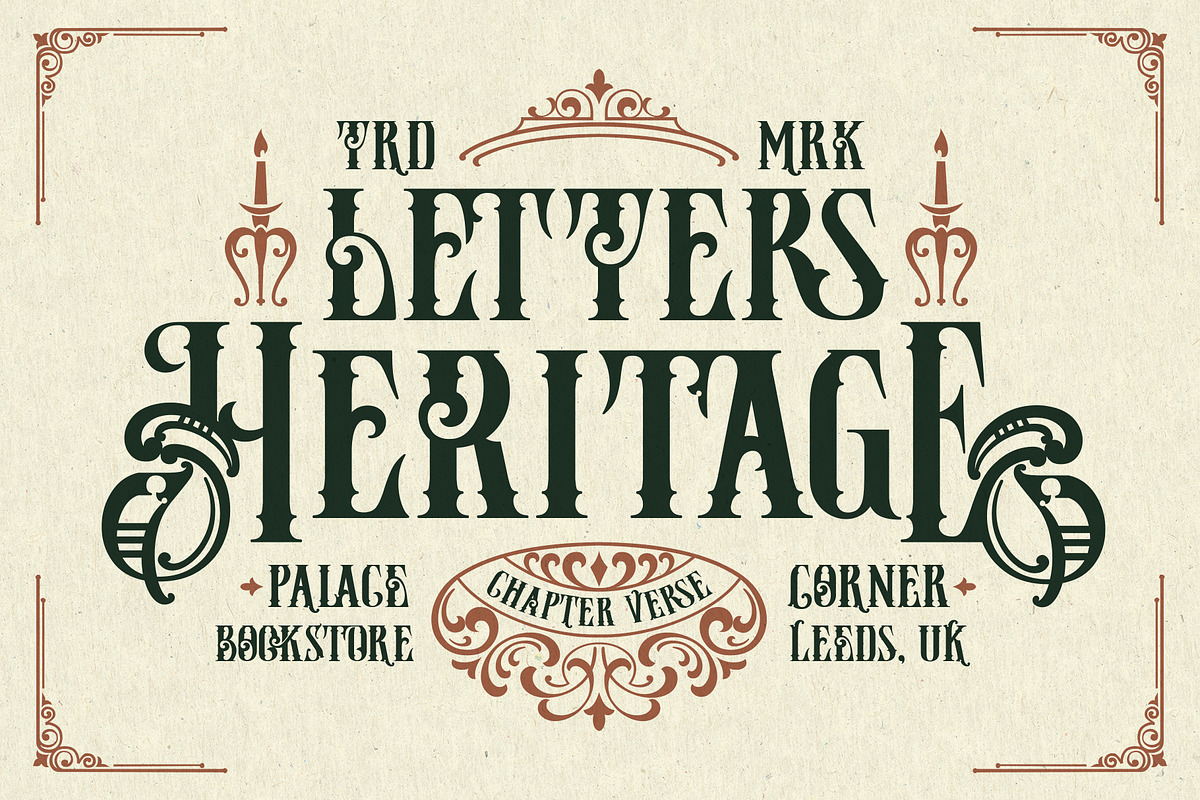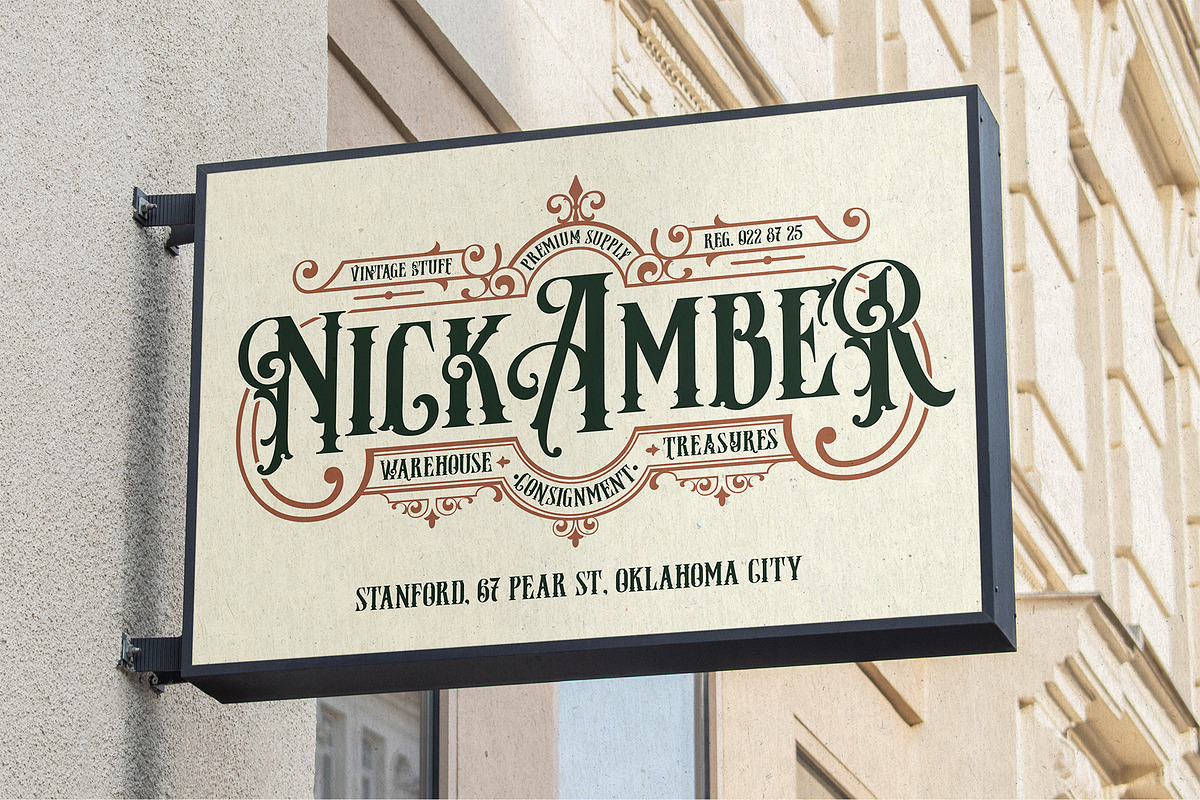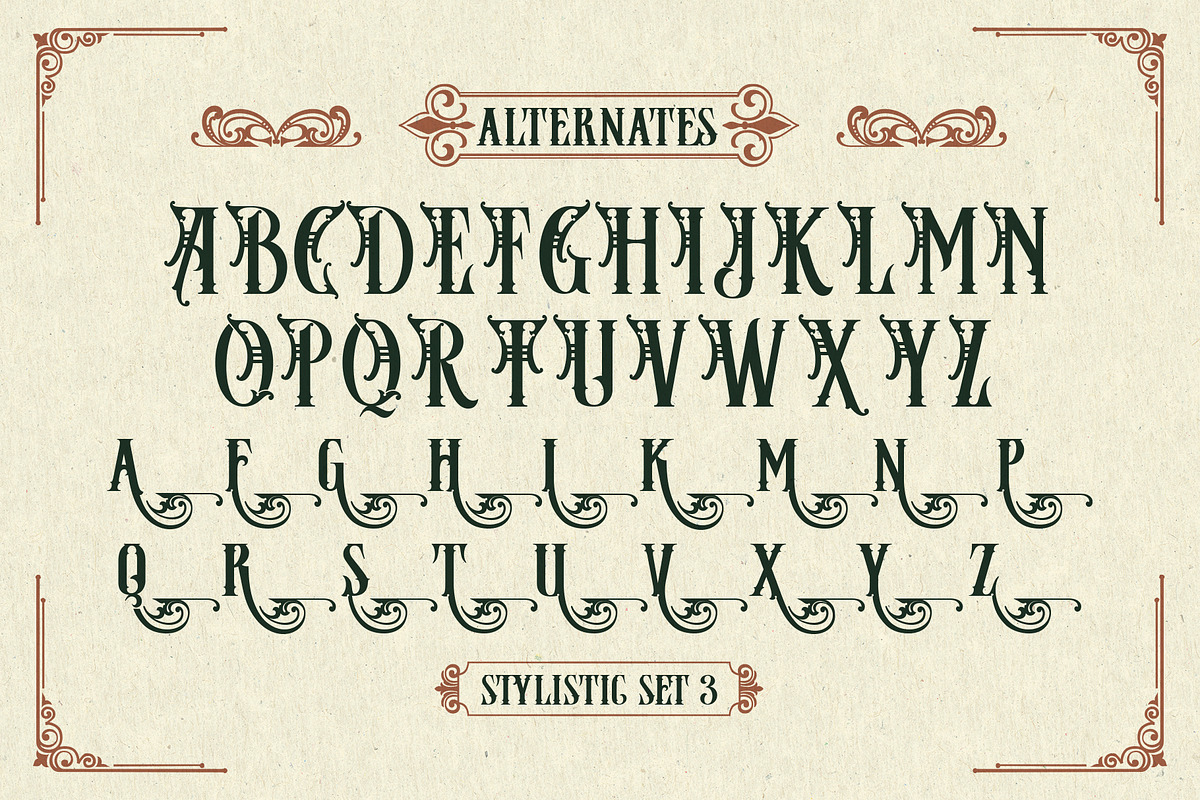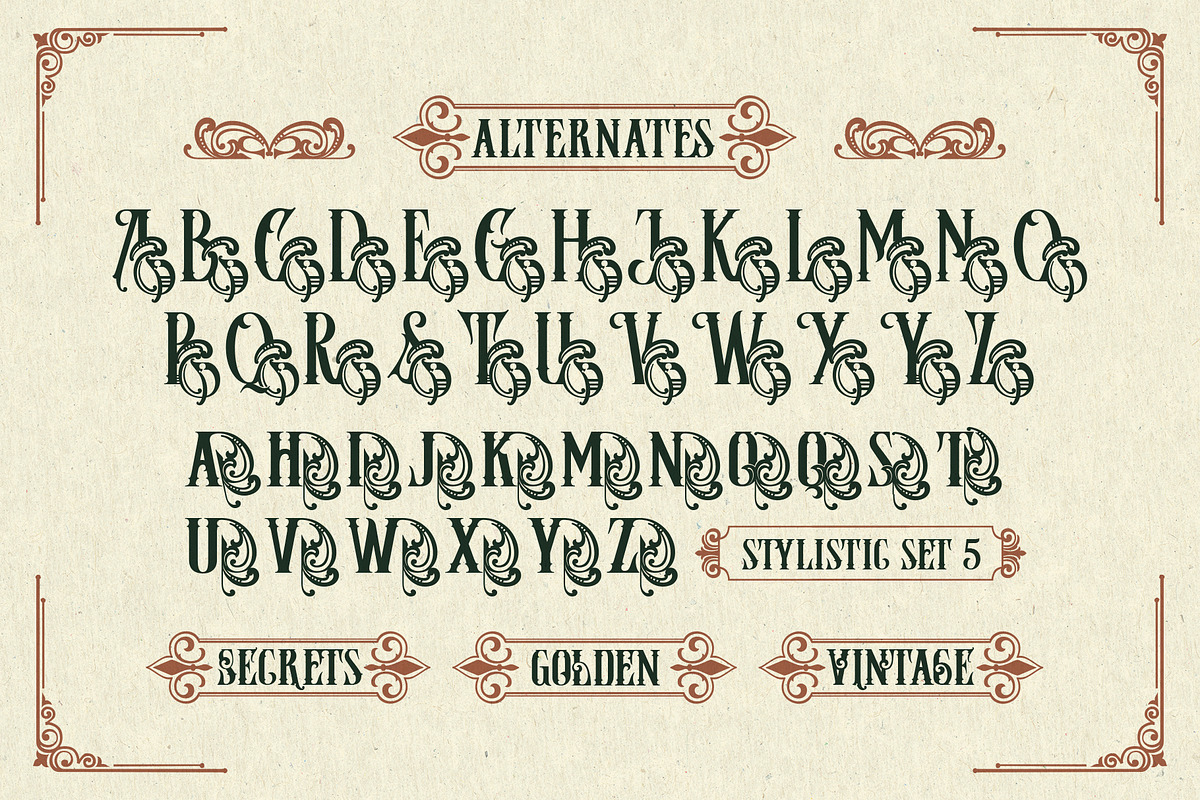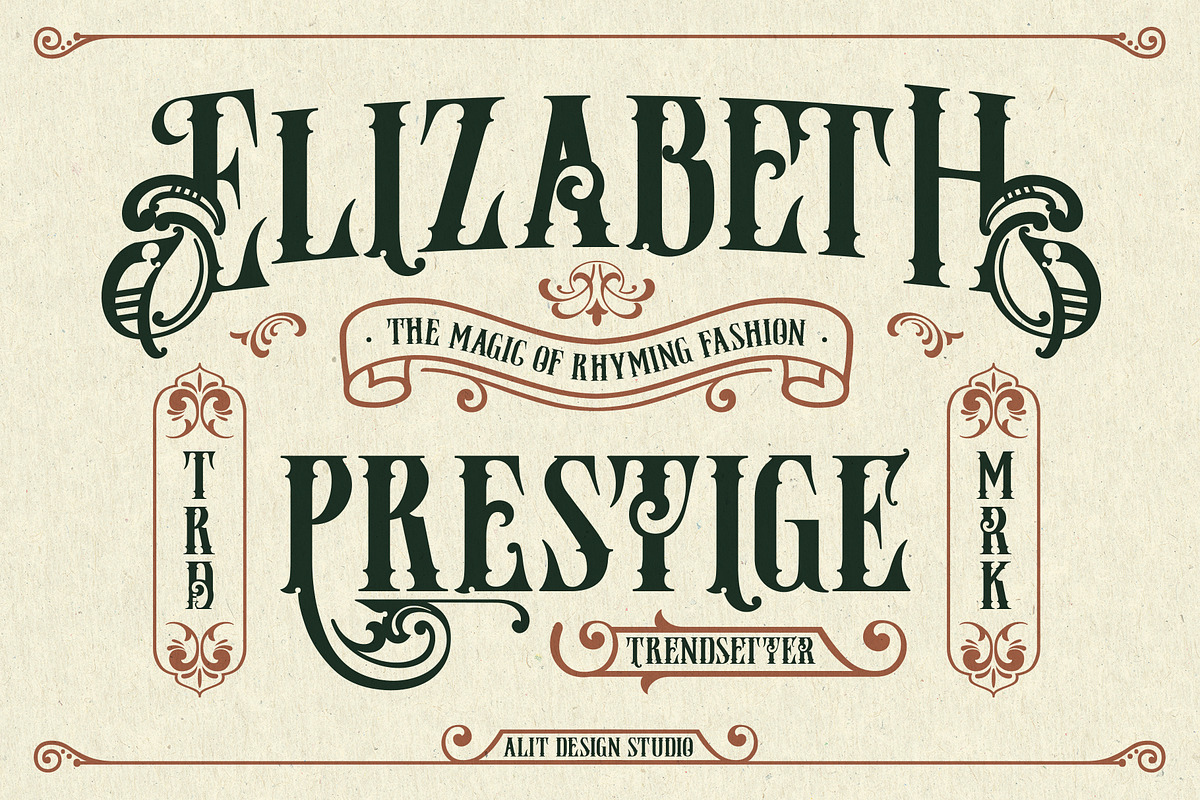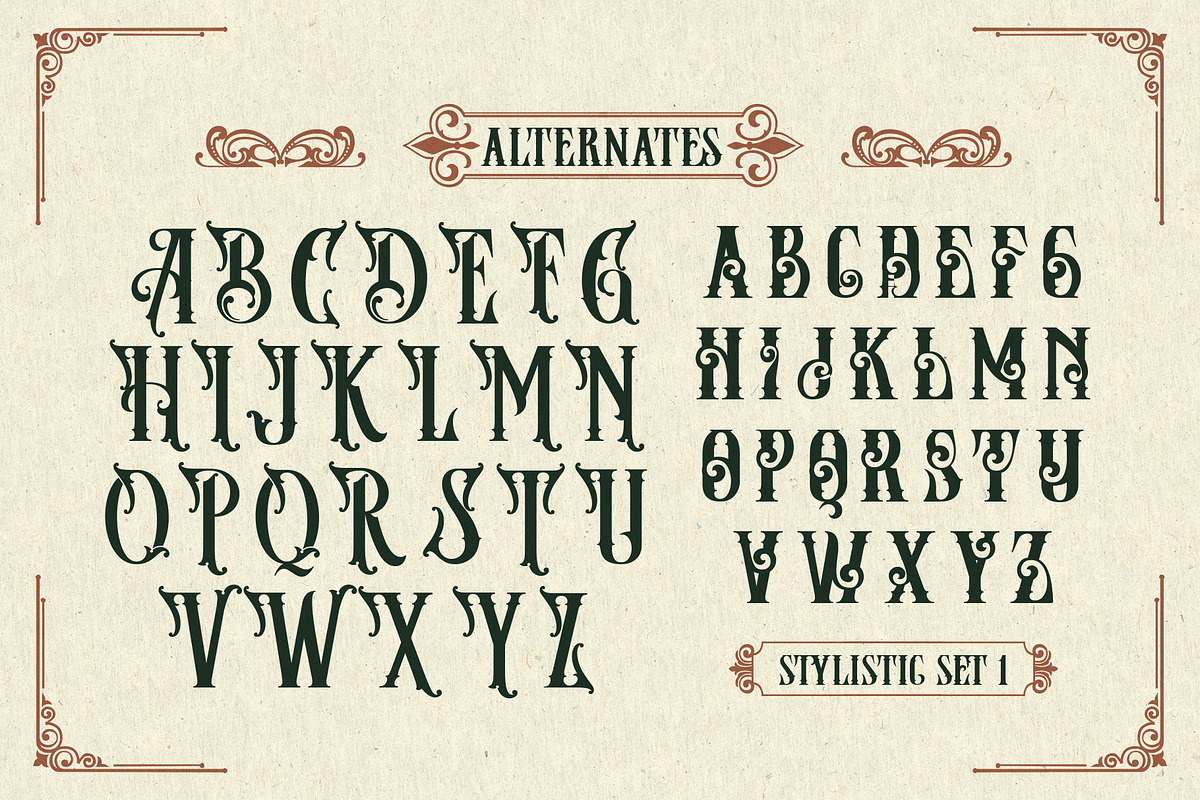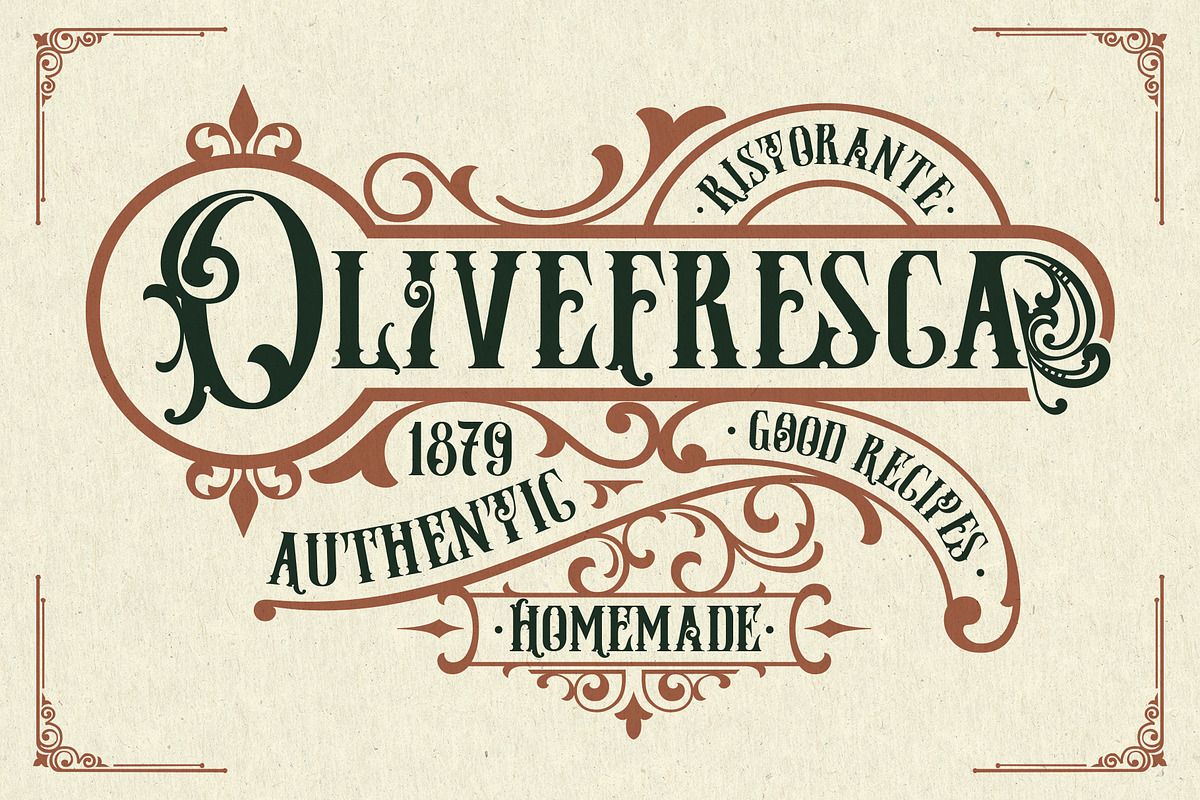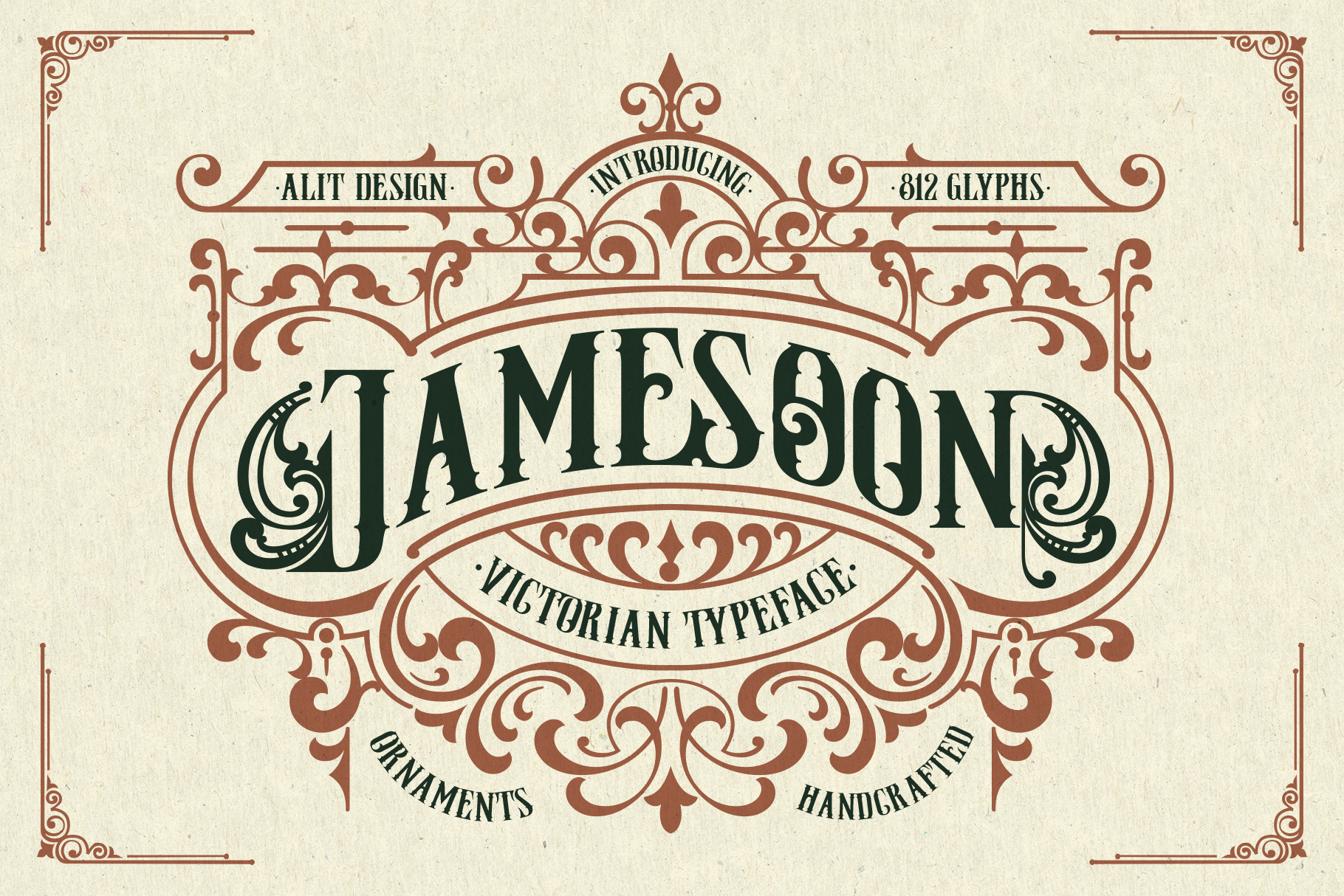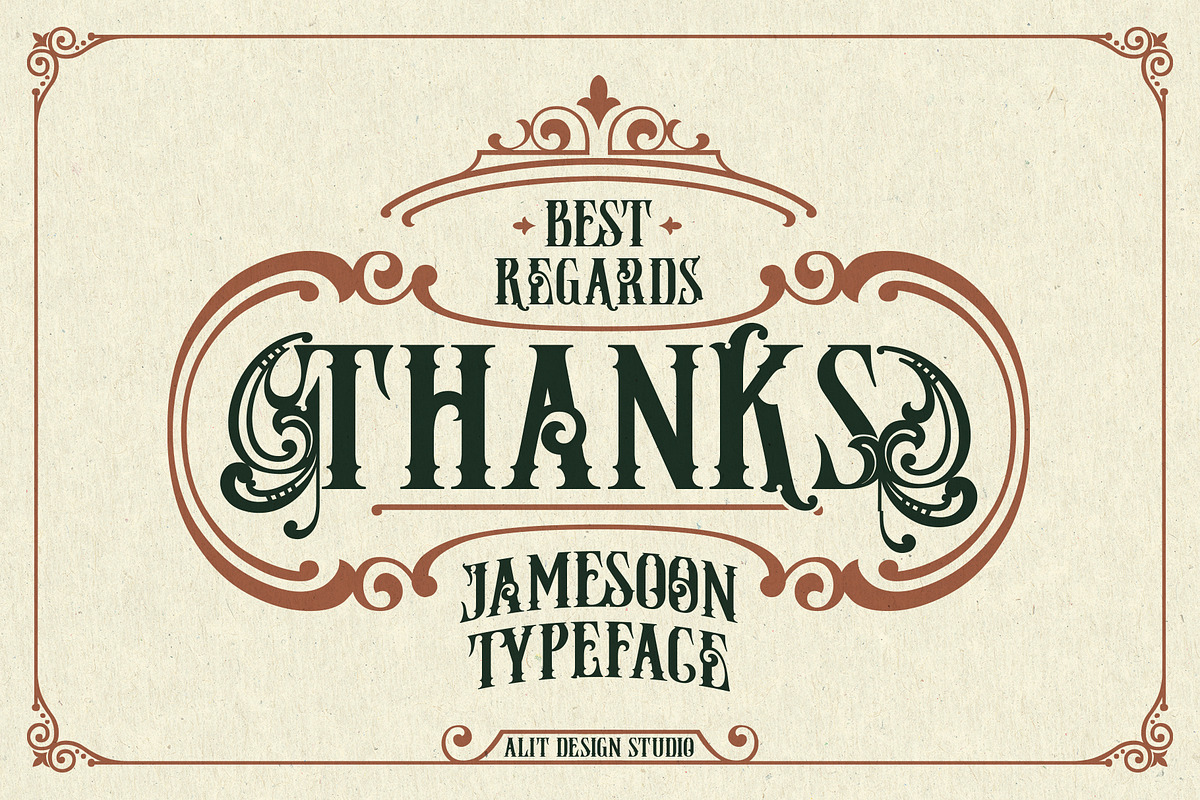
Jamesoon Victorian Typeface
Jamesoon Victorian Font: A Timeless Victorian Elegance
Step into the grace of a bygone era with the Jamesoon Victorian Font, a beautifully crafted serif typeface inspired by the opulent charm of the Victorian period. This font captures the essence of vintage allure with a modern twist, making it the perfect choice for designs that require sophistication, elegance, and a touch of classical romance.
- Extensive Character Set: Boasting a remarkable 812 characters, Jamesoon offers an impressive array of glyphs to fulfill any creative vision.
- Alternatives & Ligatures: Enjoy a wealth of customization options with many alternative characters and unique ligatures that provide limitless creative potential, making each word a work of art.
- Ornamental Swashes: Add a flourish to your designs with elegant swashes that embellish your text, perfect for high-end branding, vintage packaging, invitations, and more.
- Multilingual Support: With full multilingual support, this font allows you to express Victorian elegance in multiple languages, opening doors for global creativity.
Jamesoon Victorian Font is ideal for vintage-inspired designs, luxury branding, logos, packaging, wedding invitations, book covers, and any project that calls for a grand, historical touch with an enchanting, sophisticated finish.
Indulge in the charm of Jamesoon Victorian and elevate your designs with its exquisite and timeless character.